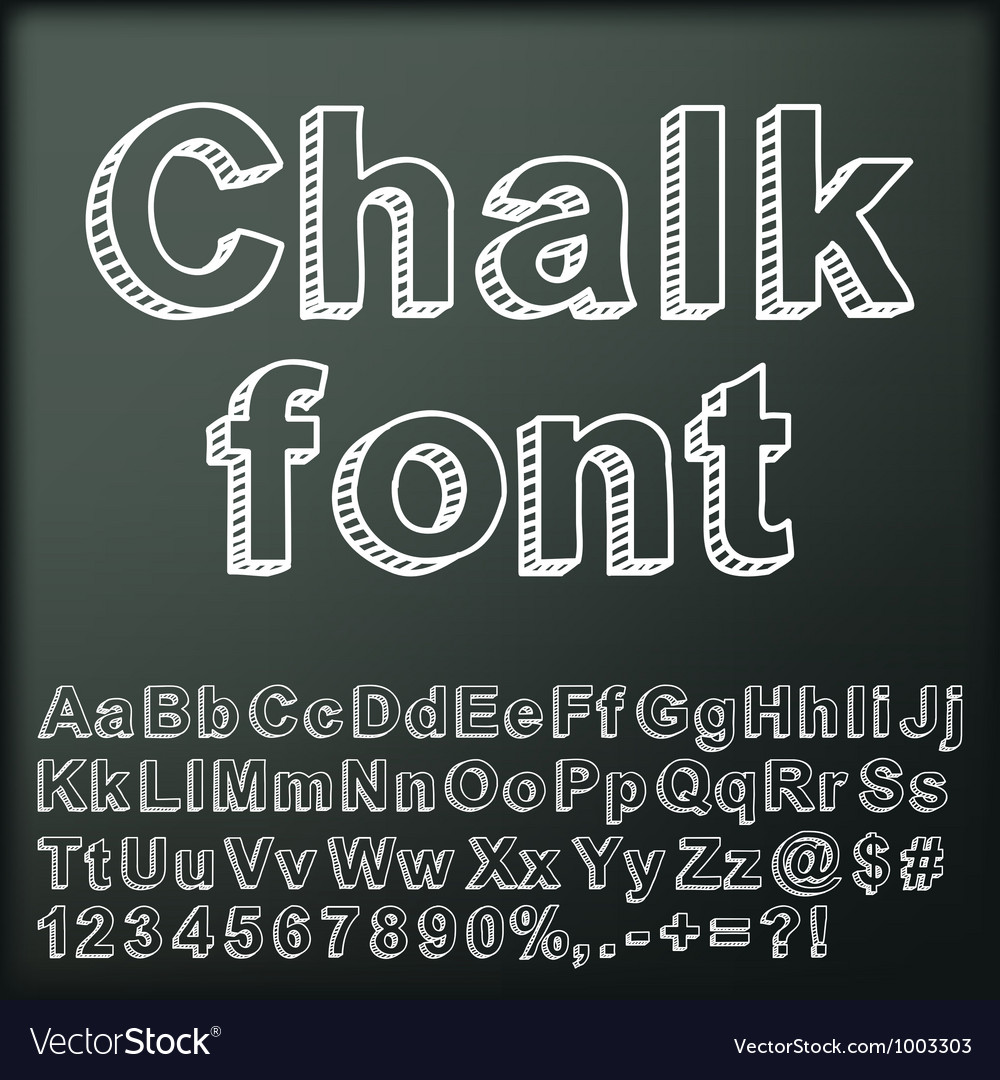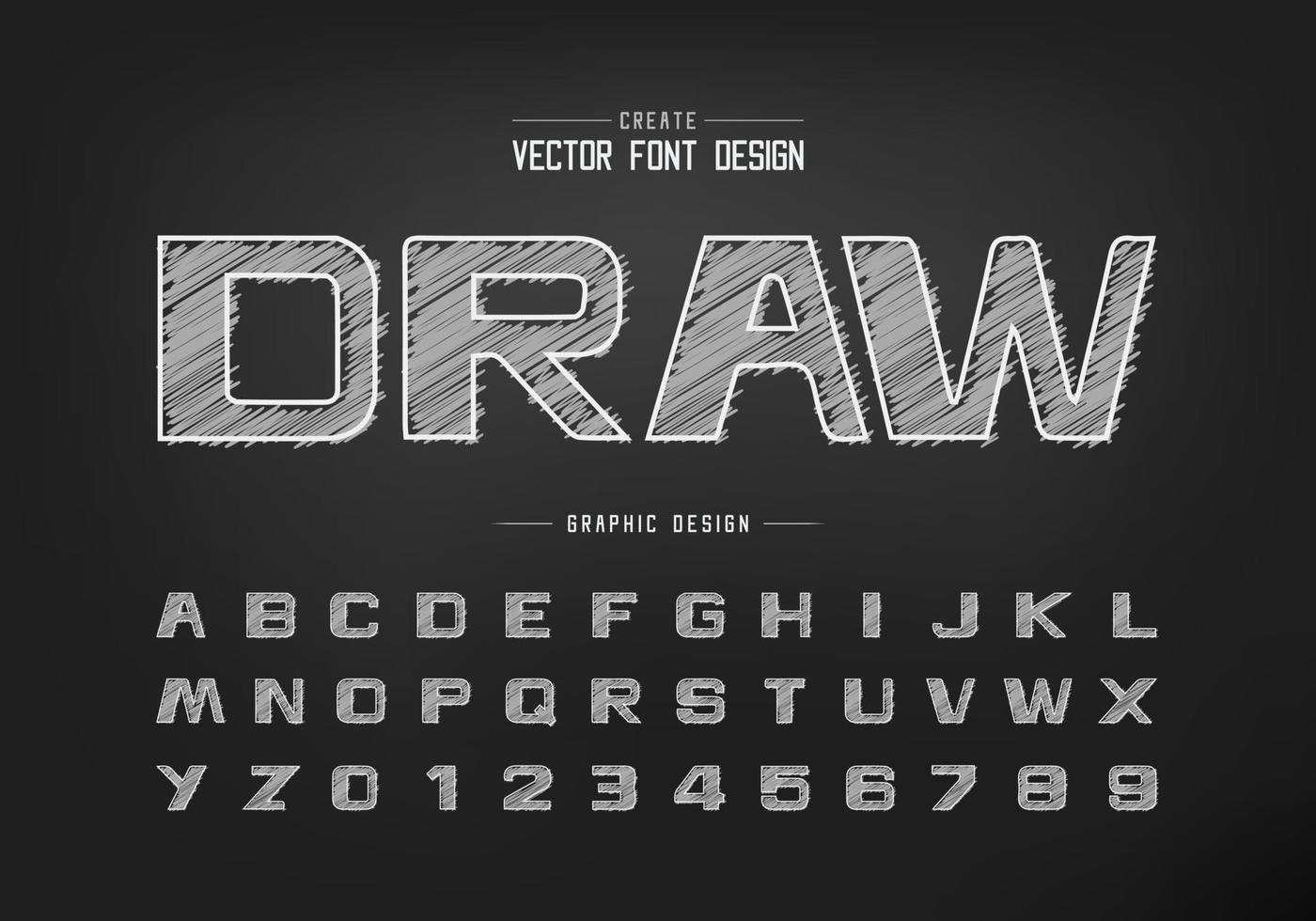
Chalk Font Css . These fonts mimic the texture and spontaneity of chalk writing, adding a playful and. Click to find the best 227 free fonts in the chalkboard style. More condensed than most fonts of. Every font is free to download! If you want to create a chalk or crayon effect for chalkboard related graphics for schools, learning courses,. Chalk fonts have letters that look like they were drawn or written with a stick of chalk. You can apply css to your pen from any stylesheet on the web. In this article, we’ve compiled a list of over 20 chalk fonts that you can download for free. Trendy, stylish chalkboard fonts, effects, and mockups add a clean, modern look to your designs. Chalk is popular with kids, who use it to write on. Designed to give your content a distinctive look, these fonts provide an easy way to add a unique touch to. Just put a url to it here and we'll apply it, in the order you have them,. Chalk fonts are fonts that simulate the writing on a chalkboard.
Trendy, stylish chalkboard fonts, effects, and mockups add a clean, modern look to your designs. More condensed than most fonts of. Just put a url to it here and we'll apply it, in the order you have them,. Chalk is popular with kids, who use it to write on. Every font is free to download! Designed to give your content a distinctive look, these fonts provide an easy way to add a unique touch to. These fonts mimic the texture and spontaneity of chalk writing, adding a playful and. If you want to create a chalk or crayon effect for chalkboard related graphics for schools, learning courses,. Chalk fonts have letters that look like they were drawn or written with a stick of chalk. Chalk fonts are fonts that simulate the writing on a chalkboard.
Chalk Font Css These fonts mimic the texture and spontaneity of chalk writing, adding a playful and. If you want to create a chalk or crayon effect for chalkboard related graphics for schools, learning courses,. These fonts mimic the texture and spontaneity of chalk writing, adding a playful and. You can apply css to your pen from any stylesheet on the web. Just put a url to it here and we'll apply it, in the order you have them,. Trendy, stylish chalkboard fonts, effects, and mockups add a clean, modern look to your designs. Click to find the best 227 free fonts in the chalkboard style. More condensed than most fonts of. Chalk is popular with kids, who use it to write on. In this article, we’ve compiled a list of over 20 chalk fonts that you can download for free. Every font is free to download! Chalk fonts have letters that look like they were drawn or written with a stick of chalk. Chalk fonts are fonts that simulate the writing on a chalkboard. Designed to give your content a distinctive look, these fonts provide an easy way to add a unique touch to.
Chalk Font Alphabet Vector Download Chalk Font Css Chalk is popular with kids, who use it to write on. You can apply css to your pen from any stylesheet on the web. If you want to create a chalk or crayon effect for chalkboard related graphics for schools, learning courses,. Click to find the best 227 free fonts in the chalkboard style. In this article, we’ve compiled a. Chalk Font Css.
Chalk Font by william jhordy · Creative Fabrica Chalk Font Css You can apply css to your pen from any stylesheet on the web. Click to find the best 227 free fonts in the chalkboard style. These fonts mimic the texture and spontaneity of chalk writing, adding a playful and. Just put a url to it here and we'll apply it, in the order you have them,. In this article, we’ve. Chalk Font Css.
26 Chalk Fonts in Canva, That'll Take You Back to School Goofy Designer Chalk Font Css These fonts mimic the texture and spontaneity of chalk writing, adding a playful and. In this article, we’ve compiled a list of over 20 chalk fonts that you can download for free. More condensed than most fonts of. Every font is free to download! Just put a url to it here and we'll apply it, in the order you have. Chalk Font Css.
60+ Best Free and Premium Chalkboard Fonts 2020 Hyperpix Chalk Font Css Chalk is popular with kids, who use it to write on. If you want to create a chalk or crayon effect for chalkboard related graphics for schools, learning courses,. In this article, we’ve compiled a list of over 20 chalk fonts that you can download for free. Designed to give your content a distinctive look, these fonts provide an easy. Chalk Font Css.
Hand drawn chalk font Royalty Free Vector Image Chalk Font Css These fonts mimic the texture and spontaneity of chalk writing, adding a playful and. Designed to give your content a distinctive look, these fonts provide an easy way to add a unique touch to. Chalk is popular with kids, who use it to write on. Chalk fonts are fonts that simulate the writing on a chalkboard. More condensed than most. Chalk Font Css.
My 25 Favorite Free Chalk Fonts i should be mopping the floor Chalk Font Css Every font is free to download! Click to find the best 227 free fonts in the chalkboard style. Trendy, stylish chalkboard fonts, effects, and mockups add a clean, modern look to your designs. You can apply css to your pen from any stylesheet on the web. Just put a url to it here and we'll apply it, in the order. Chalk Font Css.
25+ Awesome Chalkboard Fonts, Effects, and Mockups — Medialoot Chalk Font Css These fonts mimic the texture and spontaneity of chalk writing, adding a playful and. Trendy, stylish chalkboard fonts, effects, and mockups add a clean, modern look to your designs. In this article, we’ve compiled a list of over 20 chalk fonts that you can download for free. Chalk is popular with kids, who use it to write on. Designed to. Chalk Font Css.
60+ Best Free and Premium Chalkboard Fonts 2020 Hyperpix Chalk Font Css More condensed than most fonts of. Just put a url to it here and we'll apply it, in the order you have them,. These fonts mimic the texture and spontaneity of chalk writing, adding a playful and. Chalk fonts have letters that look like they were drawn or written with a stick of chalk. Trendy, stylish chalkboard fonts, effects, and. Chalk Font Css.
Chalkboard typeface modern font written Royalty Free Vector Chalk Font Css These fonts mimic the texture and spontaneity of chalk writing, adding a playful and. Just put a url to it here and we'll apply it, in the order you have them,. Trendy, stylish chalkboard fonts, effects, and mockups add a clean, modern look to your designs. Chalk is popular with kids, who use it to write on. Every font is. Chalk Font Css.
White Chalk Font Free Download Chalk Font Css Chalk fonts are fonts that simulate the writing on a chalkboard. If you want to create a chalk or crayon effect for chalkboard related graphics for schools, learning courses,. You can apply css to your pen from any stylesheet on the web. Just put a url to it here and we'll apply it, in the order you have them,. More. Chalk Font Css.